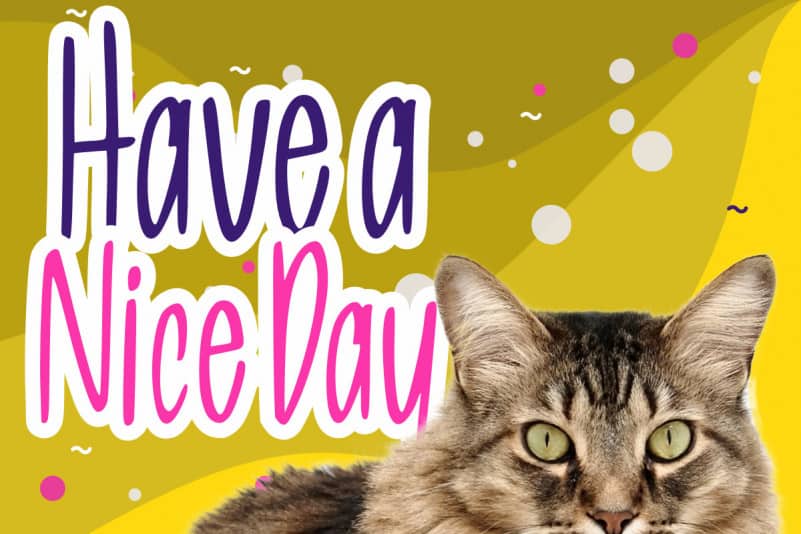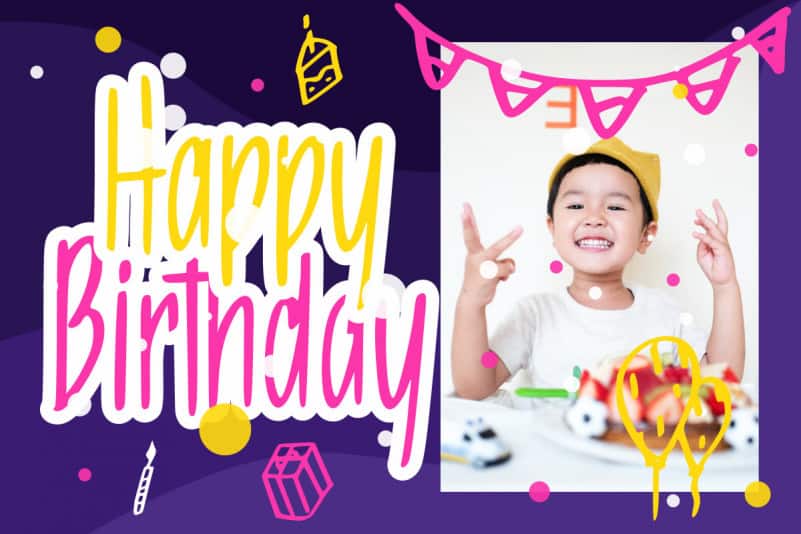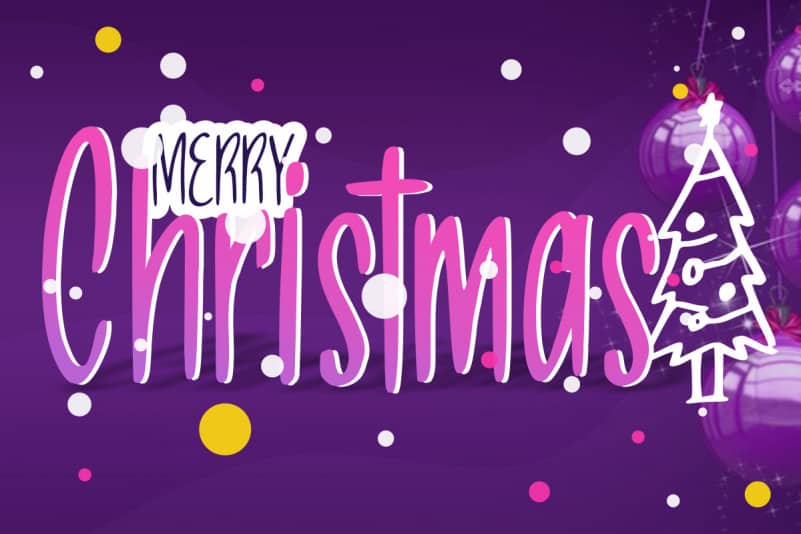
Allea Sweet Display Font
Allea Sweet Display Font is a handwritten font that is easy to read and looks cheerful. You also get a bonus in the form of Doodles Party. This super cute font is perfect for cute design projects or themed parties, celebrations and kids.